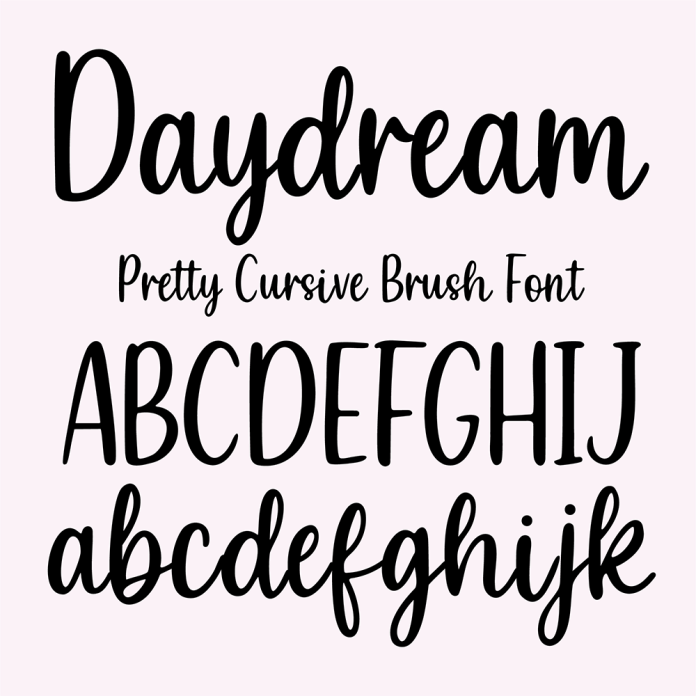
BFC Daydream Brush Script Cursive Handwriting Font is a whimsical and flowing font design perfect for capturing the essence of carefree summer days. Its key features include elegant brush strokes, fluid cursive handwriting style, and a playful script that adds a touch of creativity to any project. Ideal for adding a warm and inviting feel to invitations, greeting cards, posters, and more.